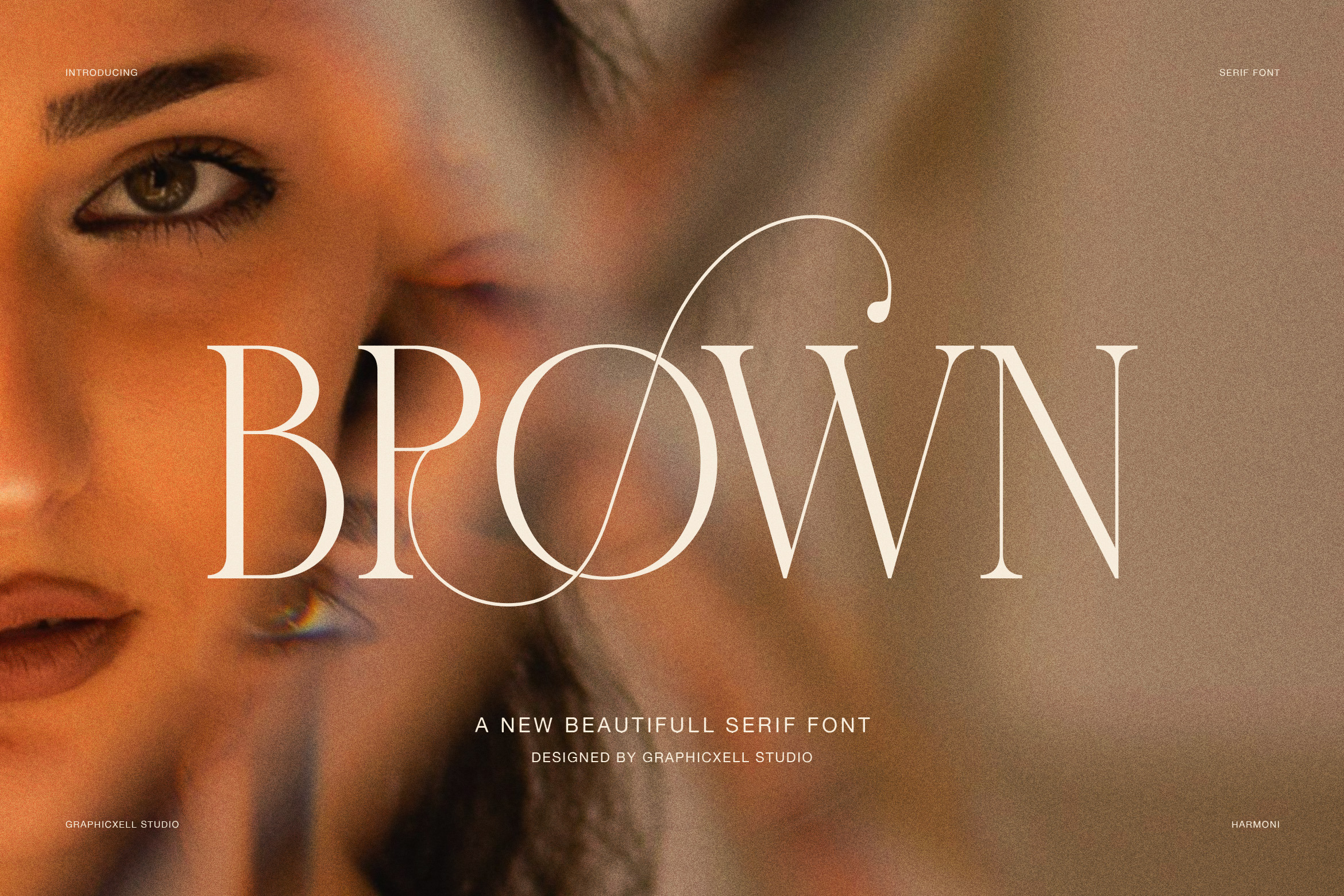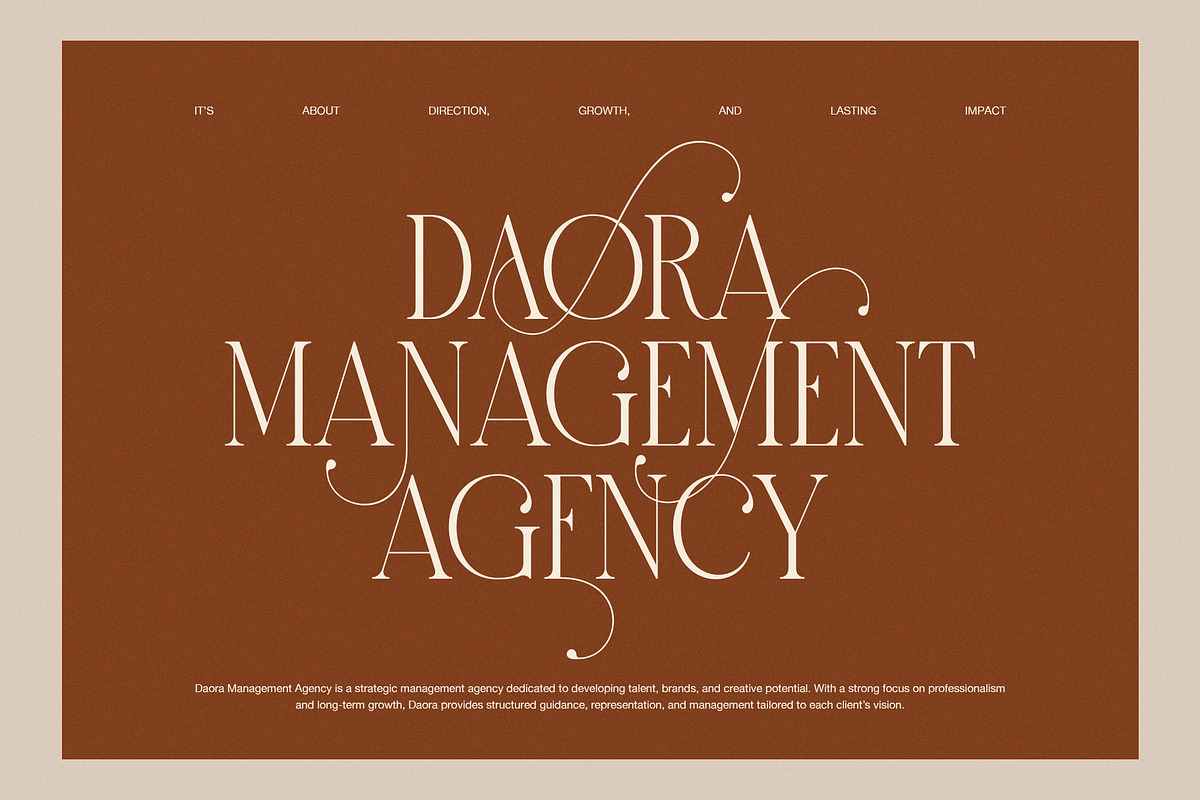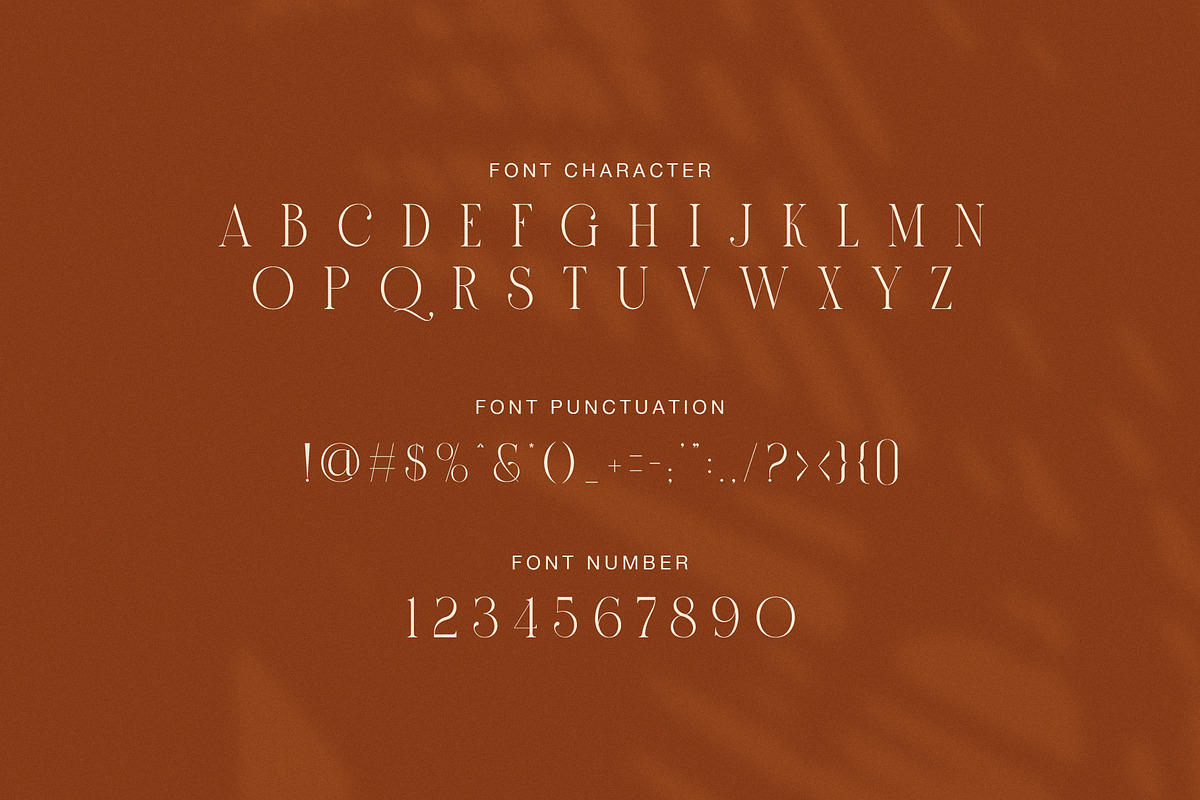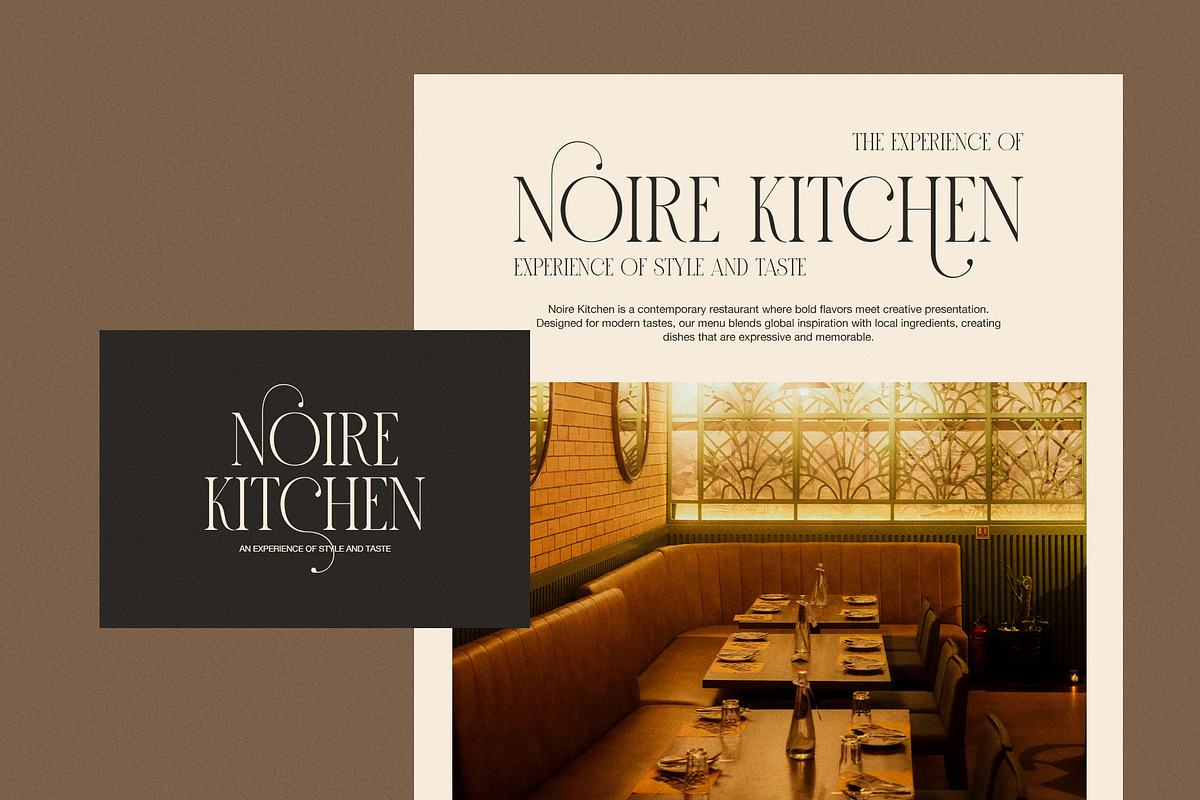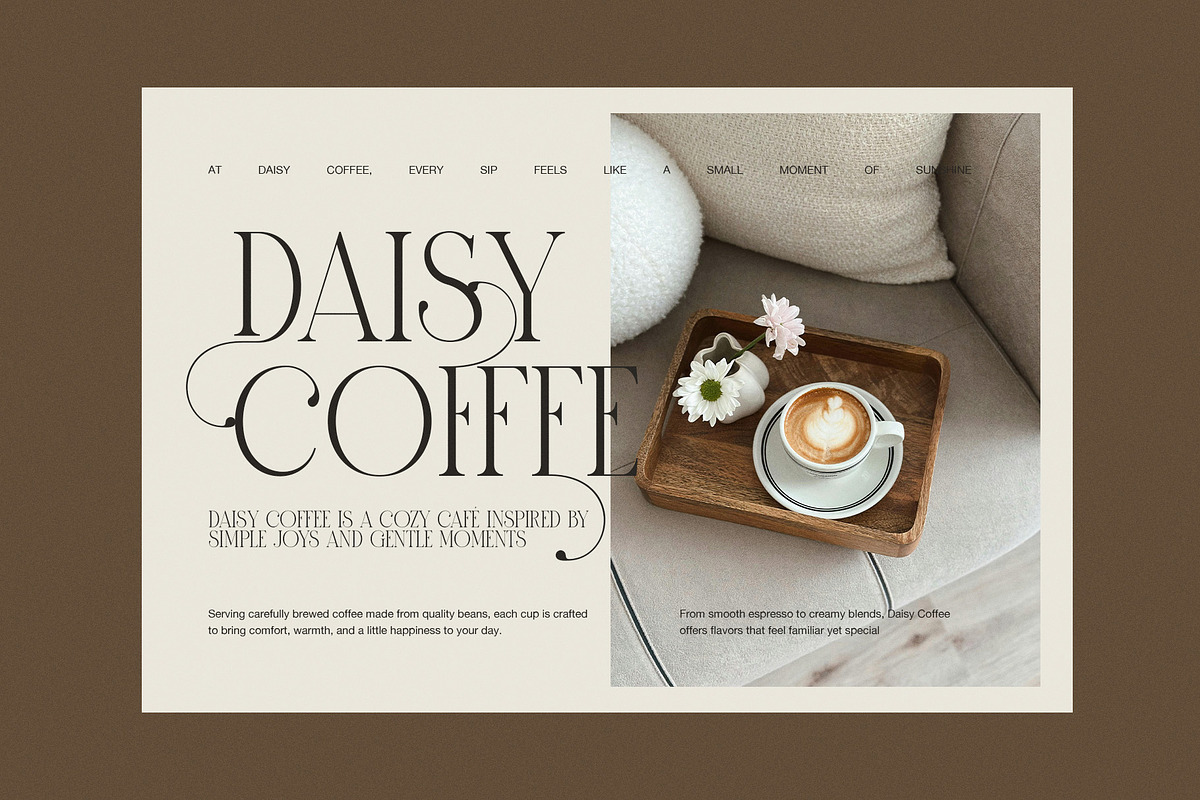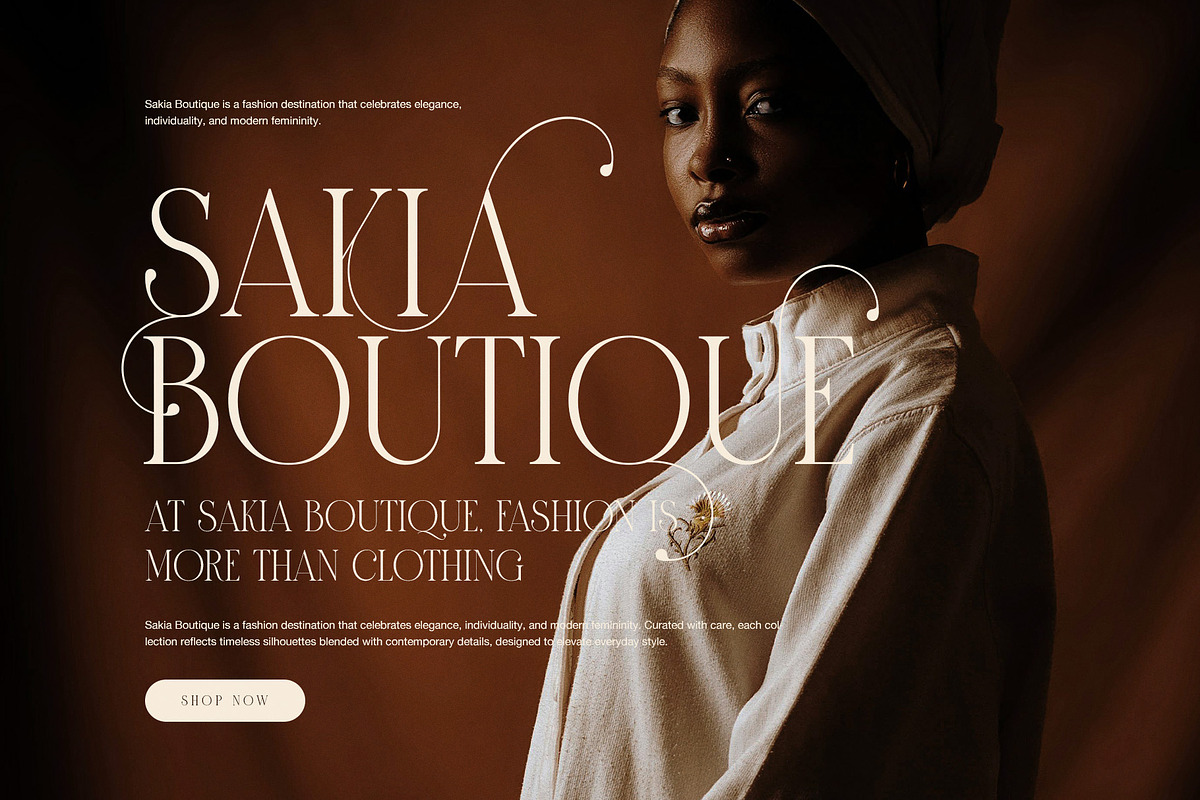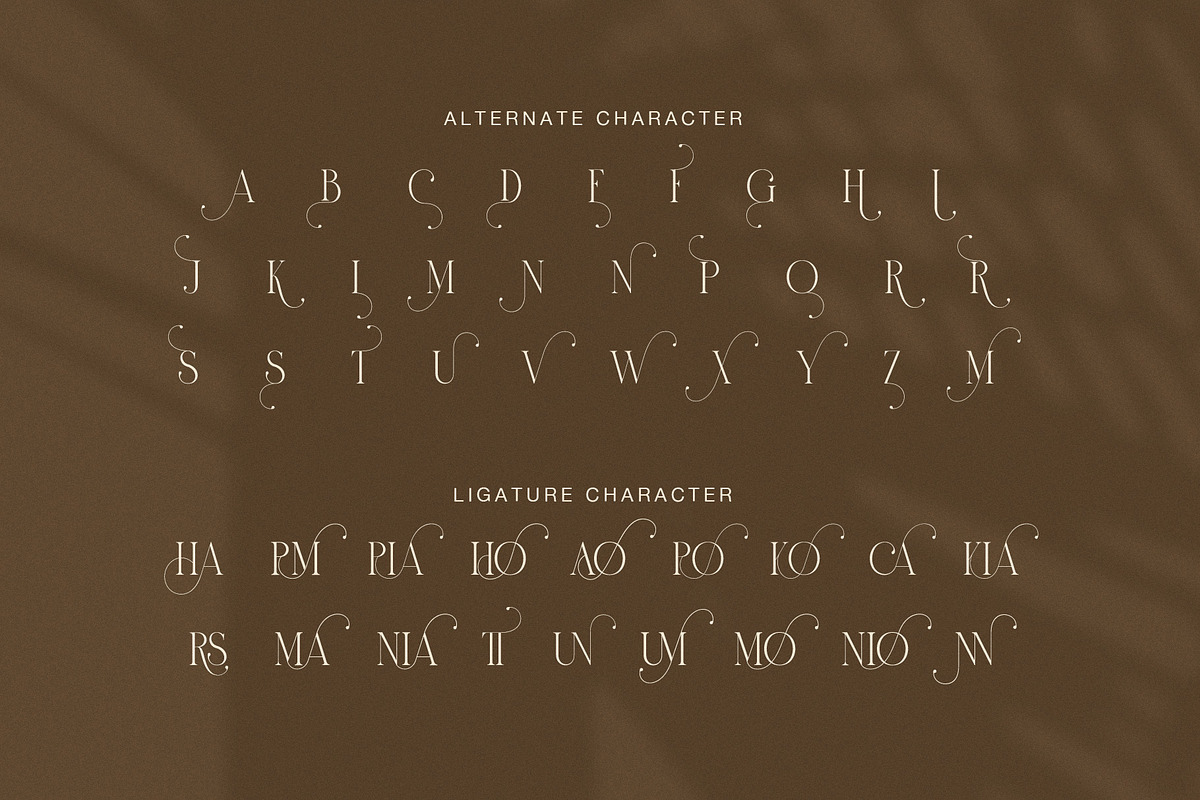
Brown Elegant Serif Display Font
Brown is an elegant serif display font designed to express luxury, confidence, and artistic charm. Inspired by fashion editorials and refined branding styles, this font blends classic serif structure with flowing decorative details. As a result, Brown delivers a graceful yet powerful visual voice across modern design projects.
This serif font features smooth contrast, long sweeping terminals, and stylish curves that add movement to every word. Moreover, the refined strokes guide the eye and create natural rhythm in headlines and logos. Because Brown includes expressive alternates and unique ligatures, designers can shape typography that feels crafted and exclusive.
Brown works beautifully for premium branding and lifestyle design. Designers often choose it for fashion campaigns, beauty labels, florist shops, and café identities. In addition, the font performs well for boutique packaging, restaurant menus, and management agency branding. Its warm and elegant personality supports both minimalist layouts and rich visual compositions.
Elegant serif display style with artistic contrast
Decorative alternate characters
Stylish ligatures for expressive lettering
Balanced uppercase and lowercase forms
Clean punctuation and smooth numerals
Furthermore, Brown offers strong flexibility across creative projects. The uppercase letters deliver authority and clarity, while the lowercase characters introduce softness and charm. Therefore, designers can build strong hierarchy while keeping visual harmony. At large sizes, the font commands attention, yet it always remains readable and refined.
Brown helps designers communicate emotion and brand identity through typography. Each letter carries careful proportions and flowing details, which give words a graceful and memorable presence. As a result, the font strengthens visual storytelling and elevates premium layouts.
In conclusion, Brown is more than a decorative serif font. It is a refined design tool built for designers who value elegance, expression, and timeless appeal. If your project requires typography that feels luxurious and artistic, Brown delivers beauty with confidence.